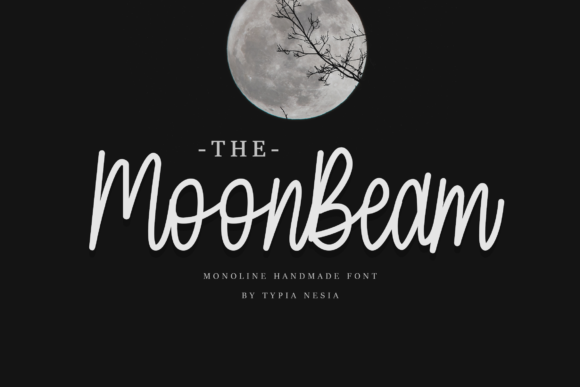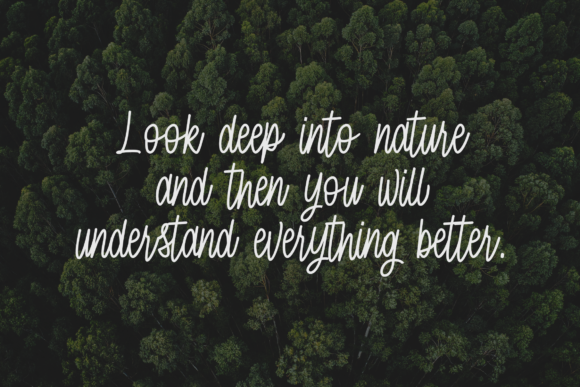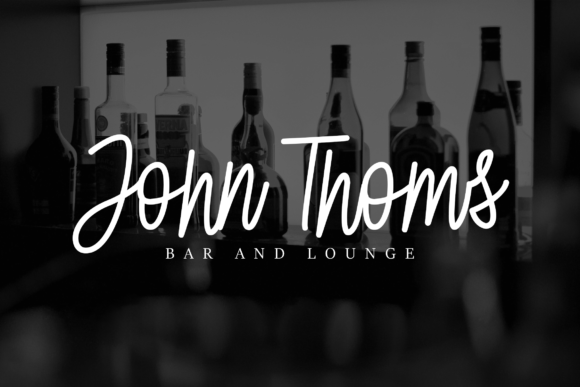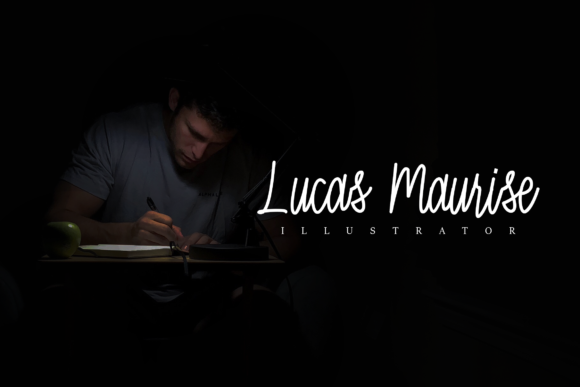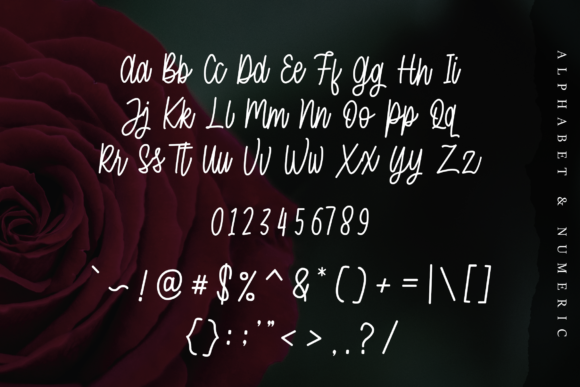
MoonBeam Font
About MoonBeam Font
MoonBeam is a handwritten monoline style font. The imperfect flow and easy handwritten style works perfectly on many designs.